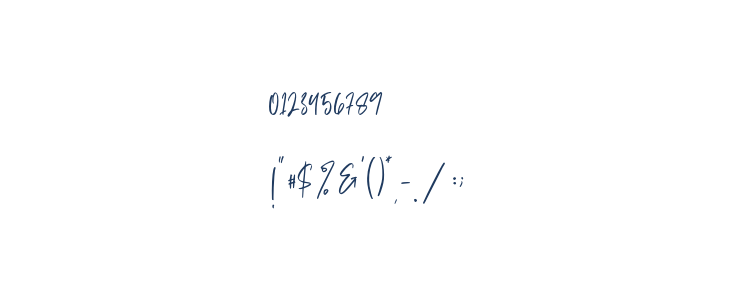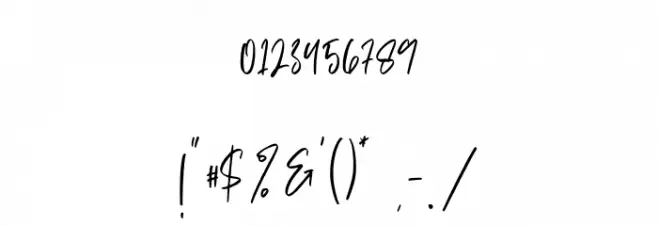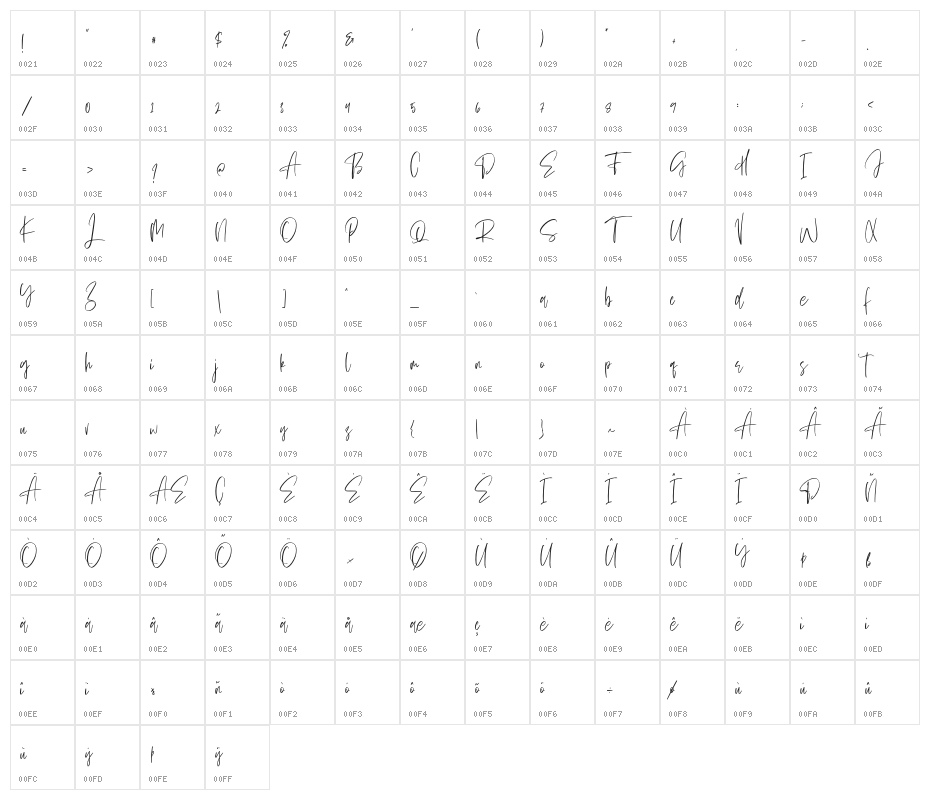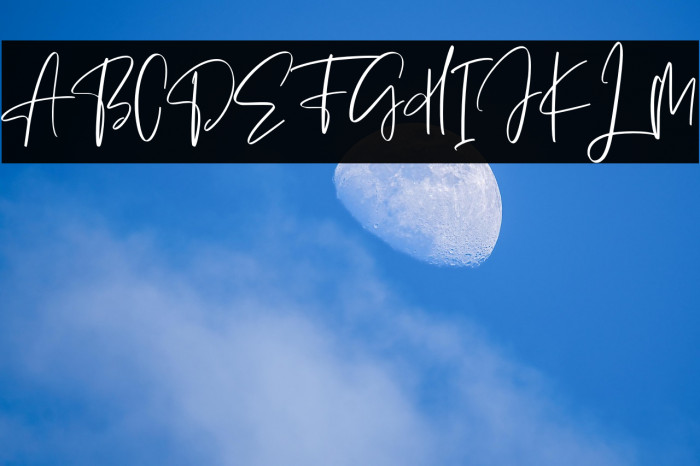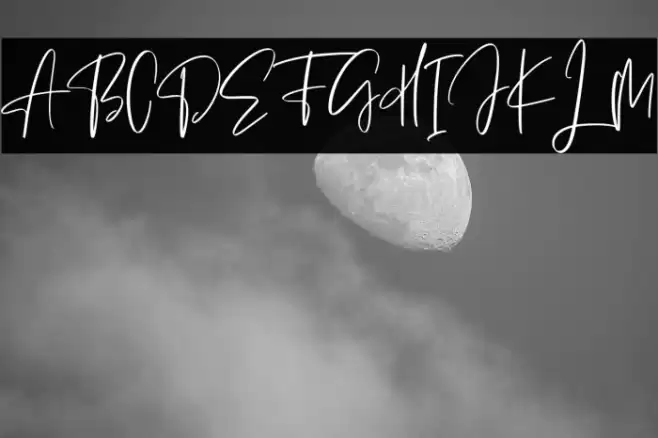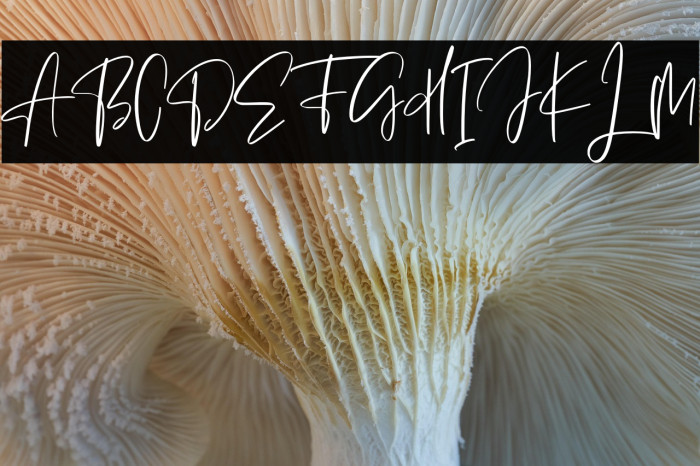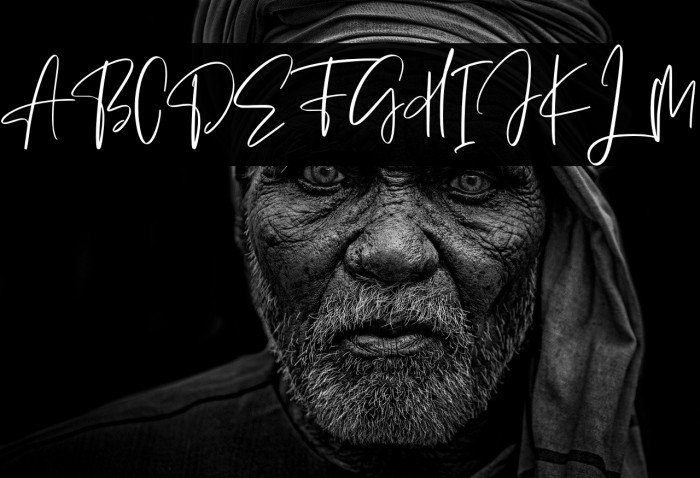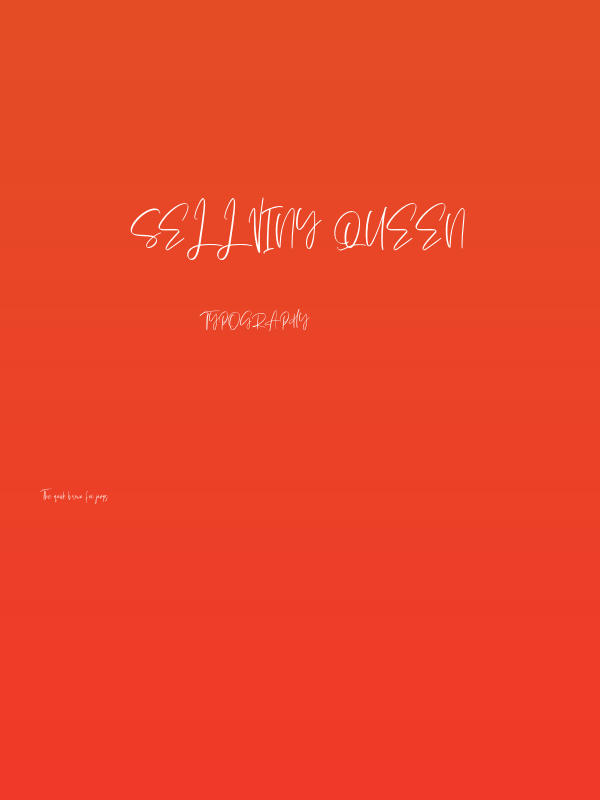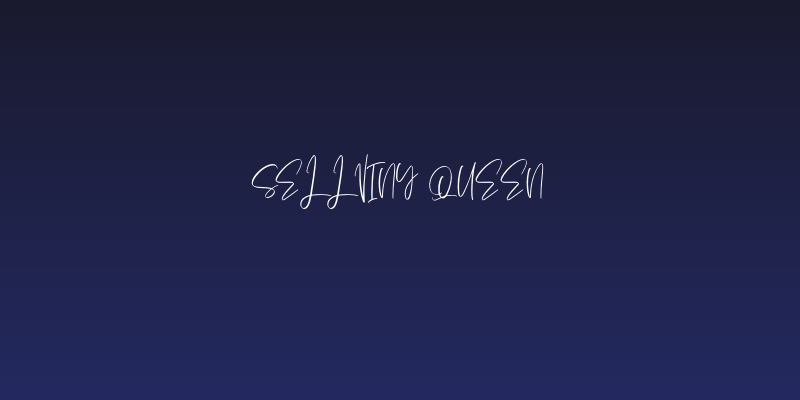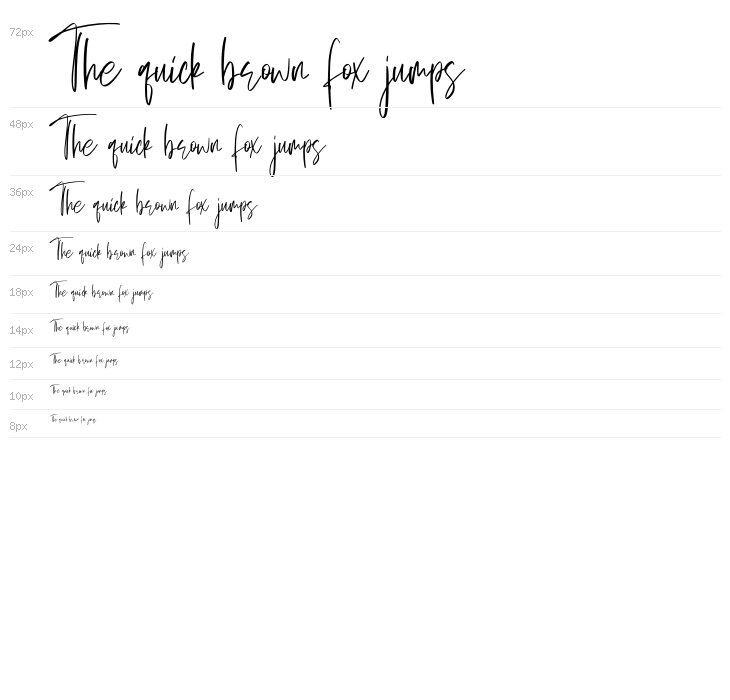
Sellviny Queen Font
Sellviny Queen Description
This font features a stylish and elegant handwritten script with a modern flair. The characters are fluid and connected, giving a sense of motion and grace. The uppercase letters are bold and slightly elongated, while the lowercase letters maintain a consistent flow with varying heights and loops. The numerals are distinct and maintain the same fluidity as the letters, making them easily readable. Special characters are creatively designed to match the overall aesthetic, adding a touch of sophistication. This font is perfect for projects that require a personal and artistic touch.
| Use Case | Logos, Invitations, Social Media Graphics |
| Proposed Projects | Ideal for wedding invitations, greeting cards, branding, and social media graphics. |